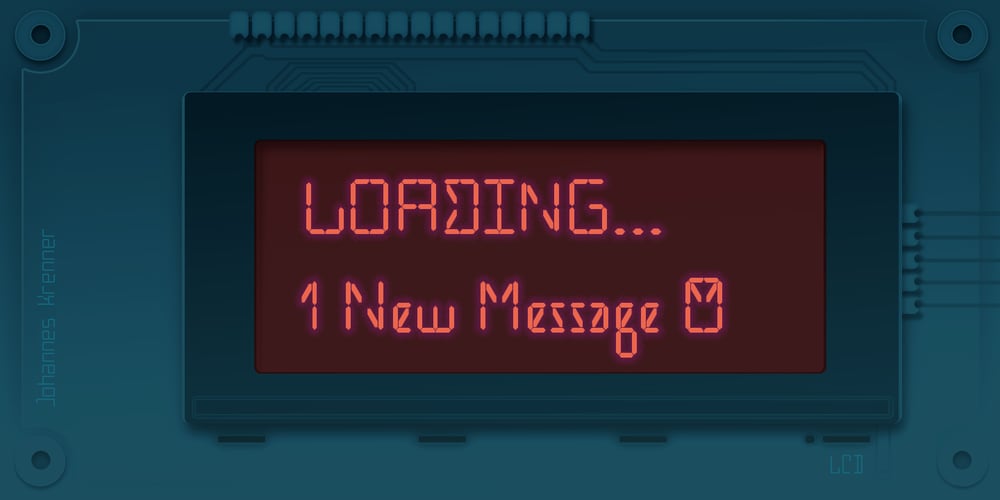
Cristal Text Font Family was designed by Johannes Krenner and published by Johannes Krenner. Cristal Text contains 12 styles and family package options. »Cristal Text« has nice to read lower case letters. It contains 636 letters per font style and some Open Type features: Different stylistic alternates and different sets of numerals. It is not monospaced: Therefor it stays not true to an underlying grid like it’s bigger brother »Cristal True«. But this offers a better legibility. The basis of this font is a Union-Jack or sixteen-segment display (SISD). I have found myself in the need of a precise and well-made font, that simulates the look of such a LCD display. Also it should offer enough letters and language support for the whole European region as well as different font styles.